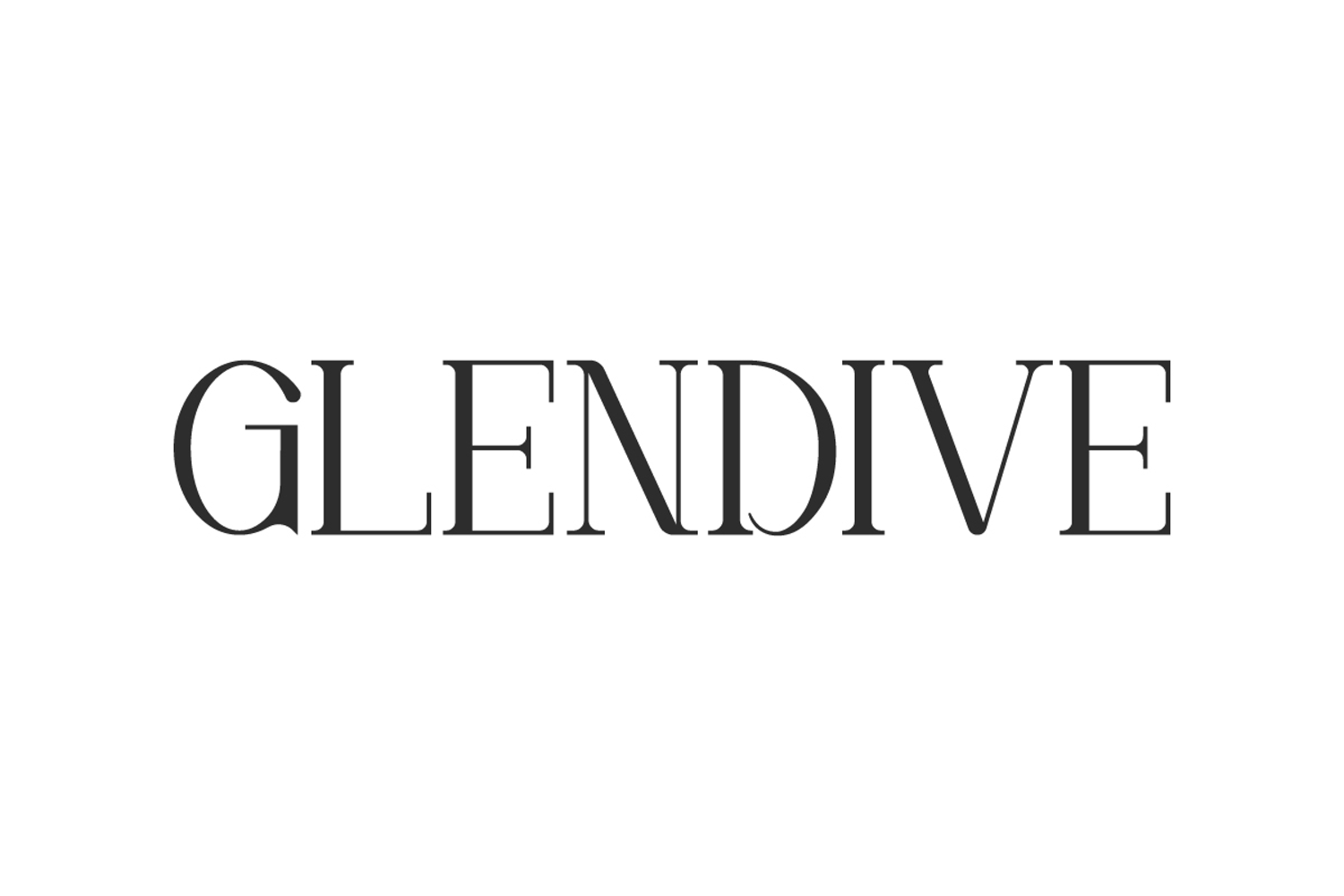
Glendive Font
Glendive Font is a beautifully crafted display typeface, this stunning typeface features the sleek and exotic characteristics of a serif font, making it an ideal choice for creating elegant and sophisticated designs. This is perfect for branding, greeting card, label, logo design, mockup, signage, template design, title and website.
Glendive Font contains a complete set of basic Uppercase and Lowercase characters, Numbers, Symbols and Punctuation. You will get a cool, elegant, and certainly unique font display with this type of letter. Each curve of the letters tempts your eyes but is still able to maintain its classy composition. Perfect for whatever you want, such as clothing brand, event organizer, fashion, florist, furniture, handicrafts, homeware, real estate, restaurant, spa salon, etc.